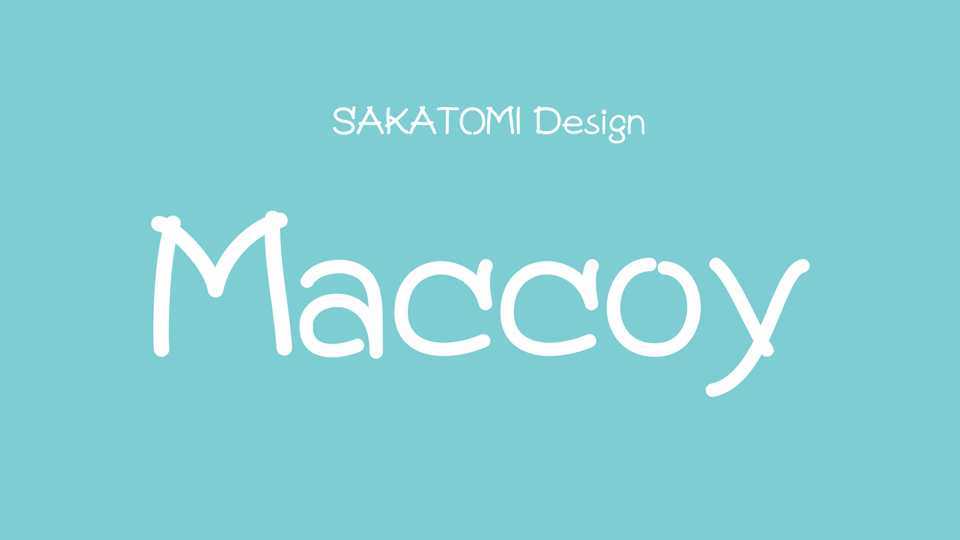
Download Maccoy font, a simple hand-drawn typeface with a friendly and funny look. Maccoy font is great for use in headings, informal announcements or any project where a friendly look is desired.
Designer: SAKATOMI Design